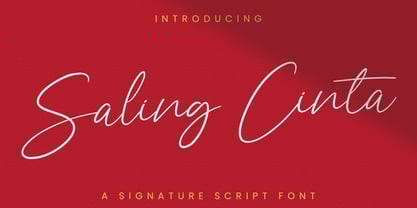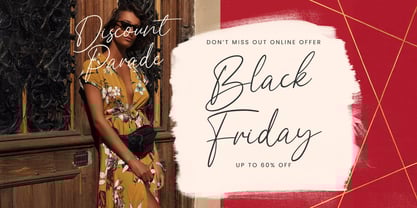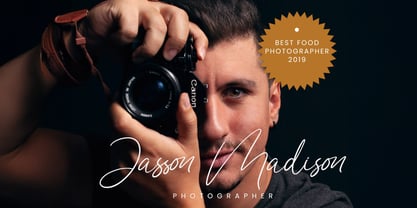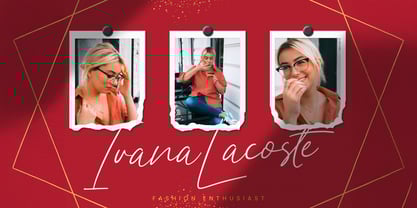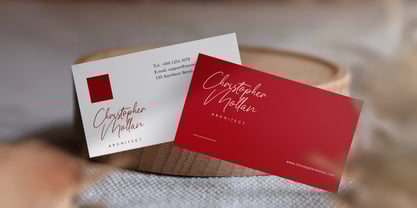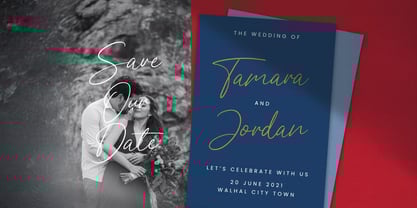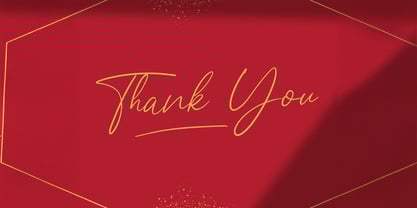
Saling Cinta
by Stringlabs Creative Studio
The Saling Cinta Font Family was designed by Virgiawan Listanto and published by Stringlabs Creative Studio. Saling Cinta contains 1 styles.
Saling Cinta is a romantic handwritten font that captures the warmth of heartfelt expression. With its soft curves and flowing strokes, this font brings a personal, emotional feel perfect for designs that speak of love, connection, and sincerity. Ideal for wedding themes, love letters, and social media quotes, Saling Cinta adds a graceful, handwritten charm to any project.
Designers: Virgiawan Listanto
Publisher: Stringlabs Creative Studio
Foundry: Stringlabs Creative Studio
Design Owner: Stringlabs Creative Studio